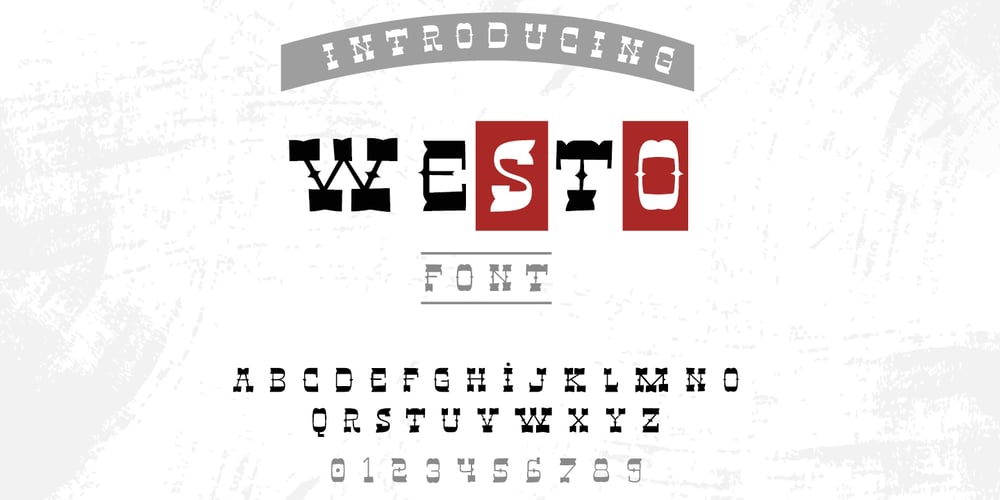
Westo Font Family was designed by Zakaria Chowdhury and published by AuburnForest. Westo contains 1 styles and family package options. Westro is great for portraying western look and feel in a poster, banner or any kinds of headlines.